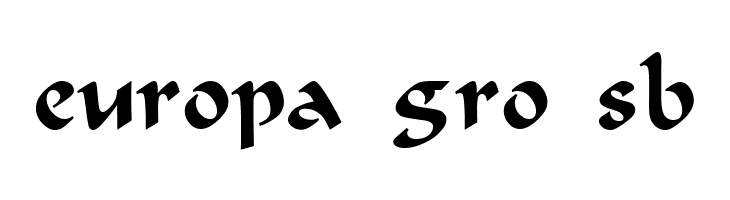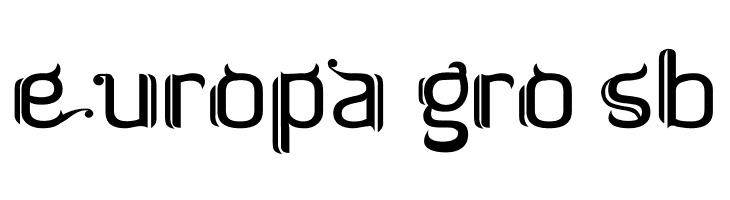
Bodacious Regular Font
A bold, angular font with a dynamic, calligraphic style.
2Peas Arizona Font
A playful, handwritten font with thin, irregular strokes and a casual vibe.
2Peas Drama Queen Font
A playful, bold display font with a whimsical, hand-drawn style.
Cold Warm Font
A bold, geometric font with a blocky, angular design.
CPeas-Architect Font
A hand-drawn, architectural sketch-style font with thin, irregular strokes.
Congrats Calligraphy Font
An elegant calligraphy font with flowing, decorative script and intricate flourishes.
flamez by marioz Font
A dynamic, flame-inspired decorative font with intricate details.
busseta Font
A bold, distressed font with a grunge, hand-drawn aesthetic.
Wrong time, right place Font
A distressed, grunge-style font with a bold, rugged appearance.
Story Telling Font
A whimsical, hand-drawn font with bold, irregular strokes and a playful style.
Cindy love art design Font
An elegant, flowing script font with smooth, cursive lines and graceful curves.